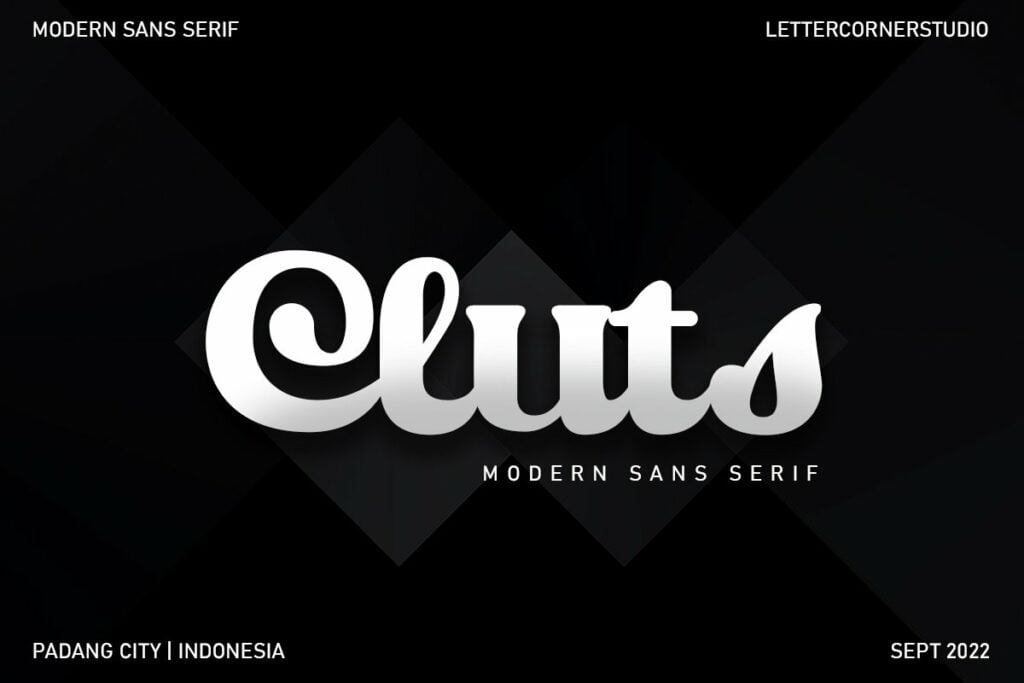
Cluts Font
Cluts is a modern retro serif font, best used as a display for headings, logos, branding, magazines, product packaging and invitations. Cluts come with clean lines and smooth curves give any project an extra touch of class.
Cluts Serif Font